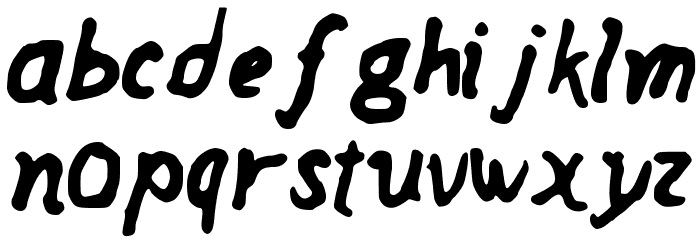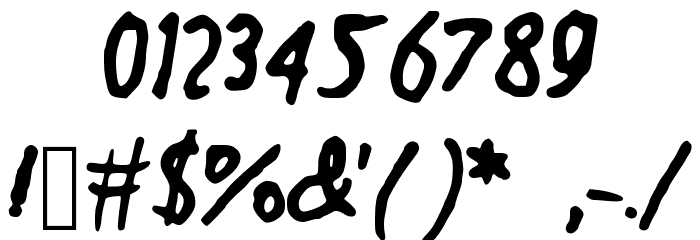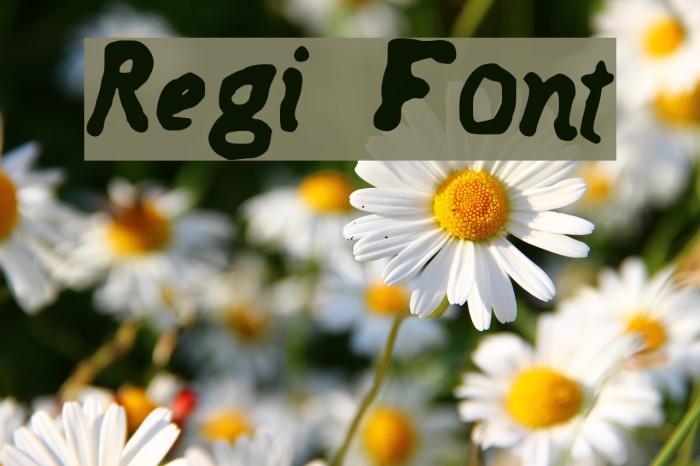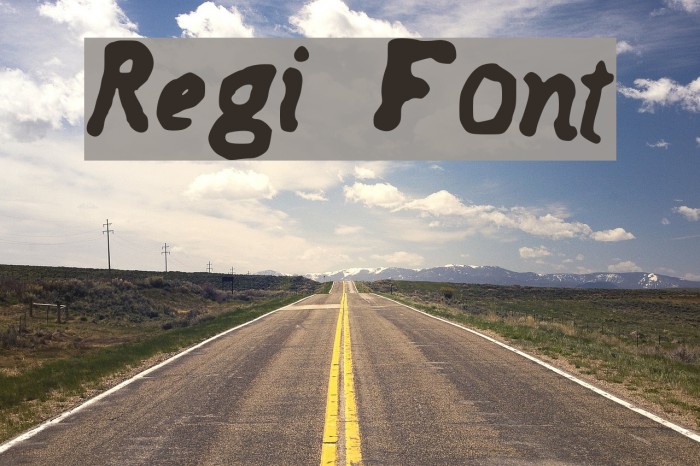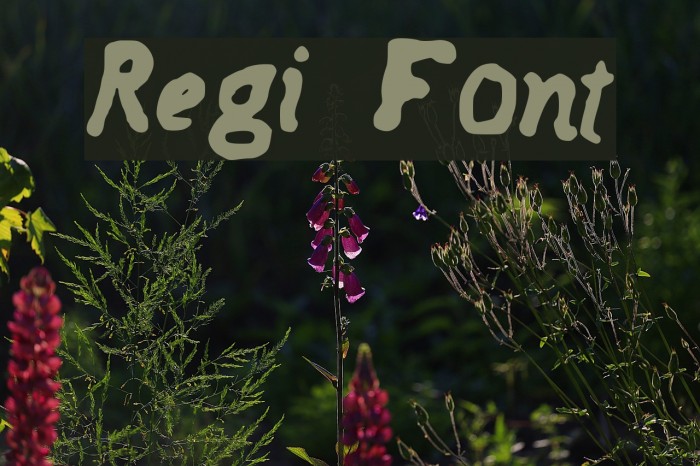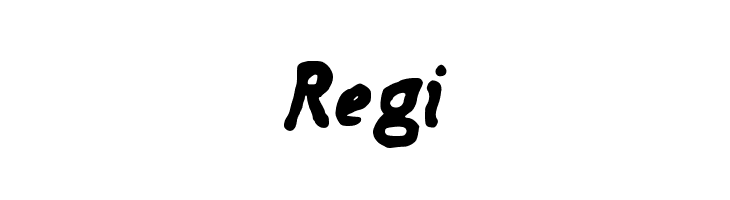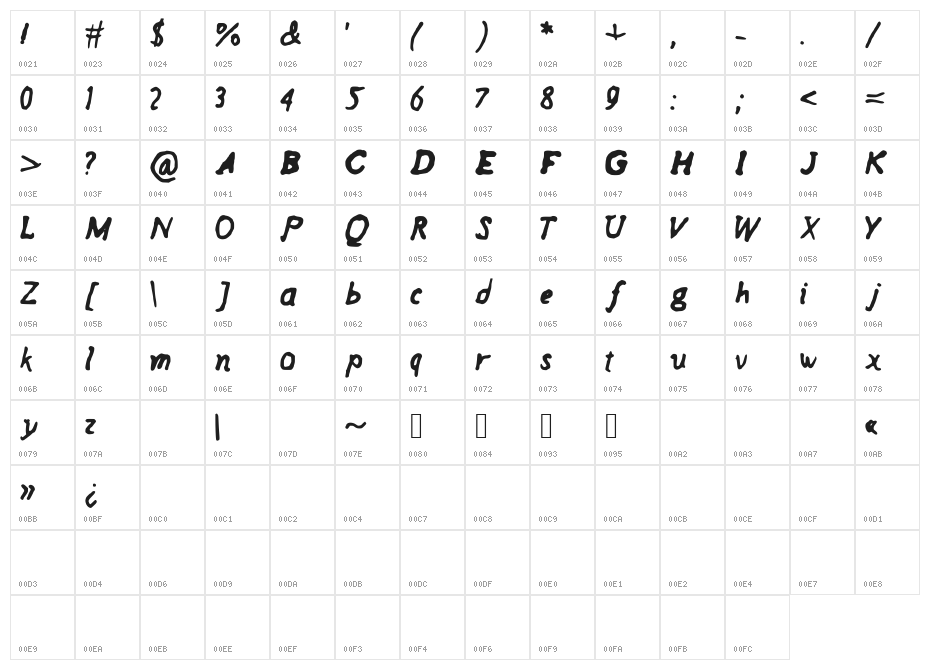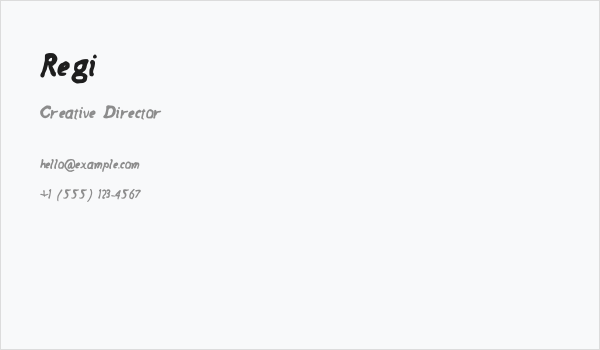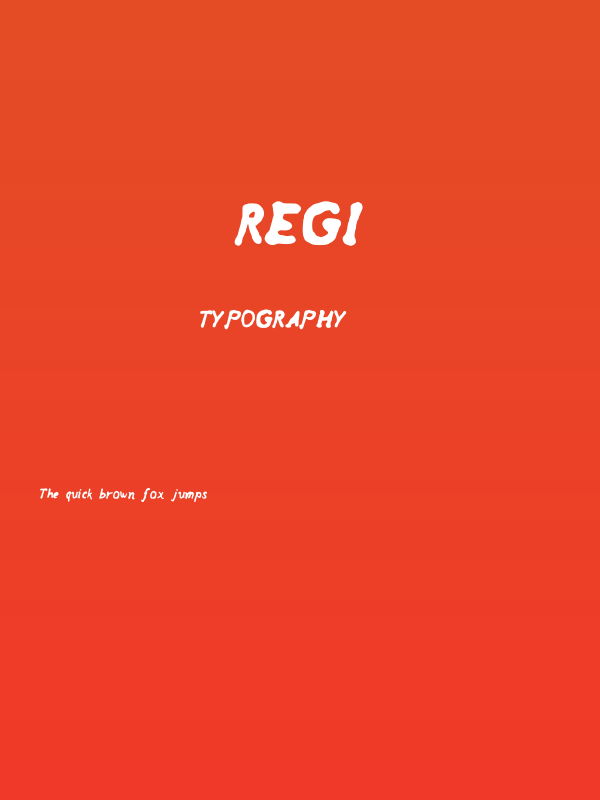
Regi Font
This font features a bold and expressive style with a handwritten appearance. The letters are slightly irregular, giving it a casual and organic feel. The uppercase and lowercase characters are distinct, with a playful and dynamic flow. The numbers and special characters maintain the same energetic style, making the font versatile for various creative applications. Its bold strokes and unique shapes make it stand out, perfect for projects that require a personal touch.
A bold, handwritten-style font with an expressive and dynamic appearance.
- Proposed Projects: Ideal for greeting cards, posters, branding materials, and social media graphics where a personal and artistic touch is desired.